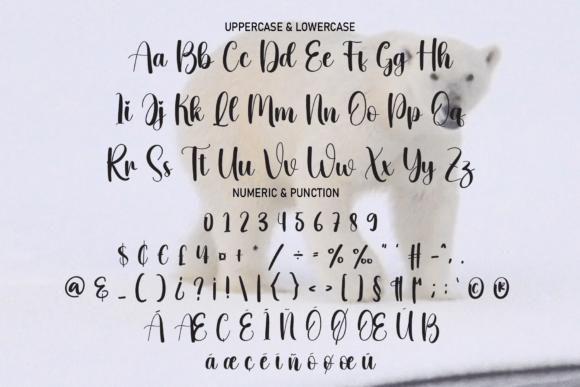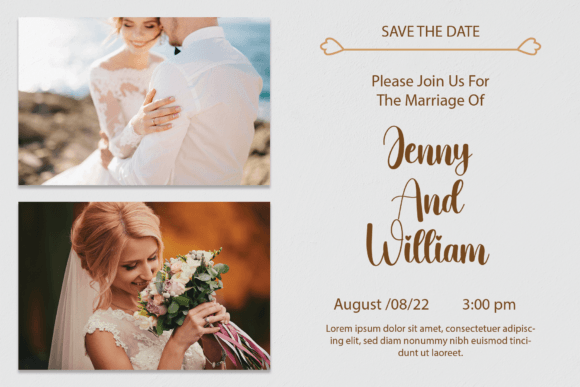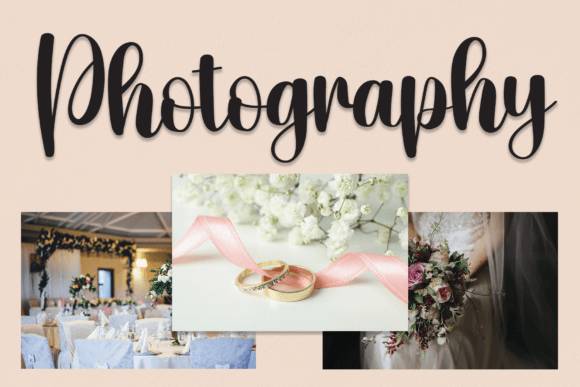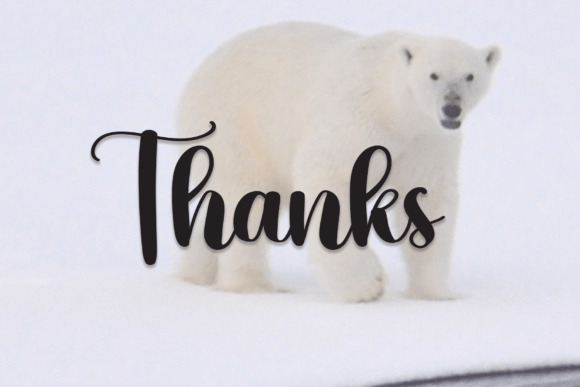
Bear Font: The Ultimate Guide to Elevate Your Design Projects
Are you tired of using the same old fonts in your design projects? Look no further than Bear Font, a cool and neat handwritten script font that’s taking the design world by storm. With its classy calligraphic influences and contemporary feel, Bear Font is the perfect choice for designers and crafters looking to add a touch of elegance and sophistication to their work.
What is Bear Font?
Bear Font is a beautifully crafted handwritten script font that’s designed to make your designs stand out. Its unique blend of traditional calligraphy and modern flair makes it perfect for a wide range of projects, from wedding invitations and branding materials to social media graphics and digital art.
Key Features of Bear Font
- Classy Calligraphic Influences: Bear Font boasts elegant, flowing lines that evoke the feeling of traditional calligraphy.
- Contemporary and Fresh: Despite its classic roots, Bear Font feels modern and fresh, making it perfect for designers who want to create something new and exciting.
- Handwritten Script: The font’s handwritten script style adds a touch of personality and whimsy to any design.
- Easy to Read: Despite its elegant feel, Bear Font is surprisingly easy to read, making it perfect for body text and headlines.
Why Choose Bear Font?
So why should you choose Bear Font for your next design project? Here are just a few reasons:
- Versatility: Bear Font is incredibly versatile, making it perfect for a wide range of projects and applications.
- Elegance: The font’s classy calligraphic influences add a touch of elegance and sophistication to any design.
- Uniqueness: With its unique blend of traditional and modern elements, Bear Font is sure to make your designs stand out from the crowd.
How to Use Bear Font in Your Design Projects
Using Bear Font in your design projects is easy. Here are a few tips to get you started:
- Pair it with Other Fonts: Bear Font pairs beautifully with other fonts, so don’t be afraid to experiment with different combinations.
- Use it for Headlines and Body Text: Bear Font is easy to read, making it perfect for both headlines and body text.
- Add it to Your Branding Materials: Use Bear Font to add a touch of elegance and sophistication to your branding materials, such as business cards and letterheads.
Tips and Tricks for Getting the Most Out of Bear Font
Here are a few tips and tricks to help you get the most out of Bear Font:
- Experiment with Different Colors: Bear Font looks great in a variety of colors, so don’t be afraid to experiment and find the perfect hue for your design.
- Use it for Digital and Print Projects: Bear Font is perfect for both digital and print projects, making it a great addition to your design toolkit.
- Combine it with Other Design Elements: Bear Font pairs beautifully with other design elements, such as illustrations and graphics.
In conclusion, Bear Font is a cool and neat handwritten script font that’s perfect for designers and crafters looking to add a touch of elegance and sophistication to their work. With its classy calligraphic influences and contemporary feel, Bear Font is sure to make your designs stand out from the crowd. So why not give it a try and see the difference it can make in your next design project?